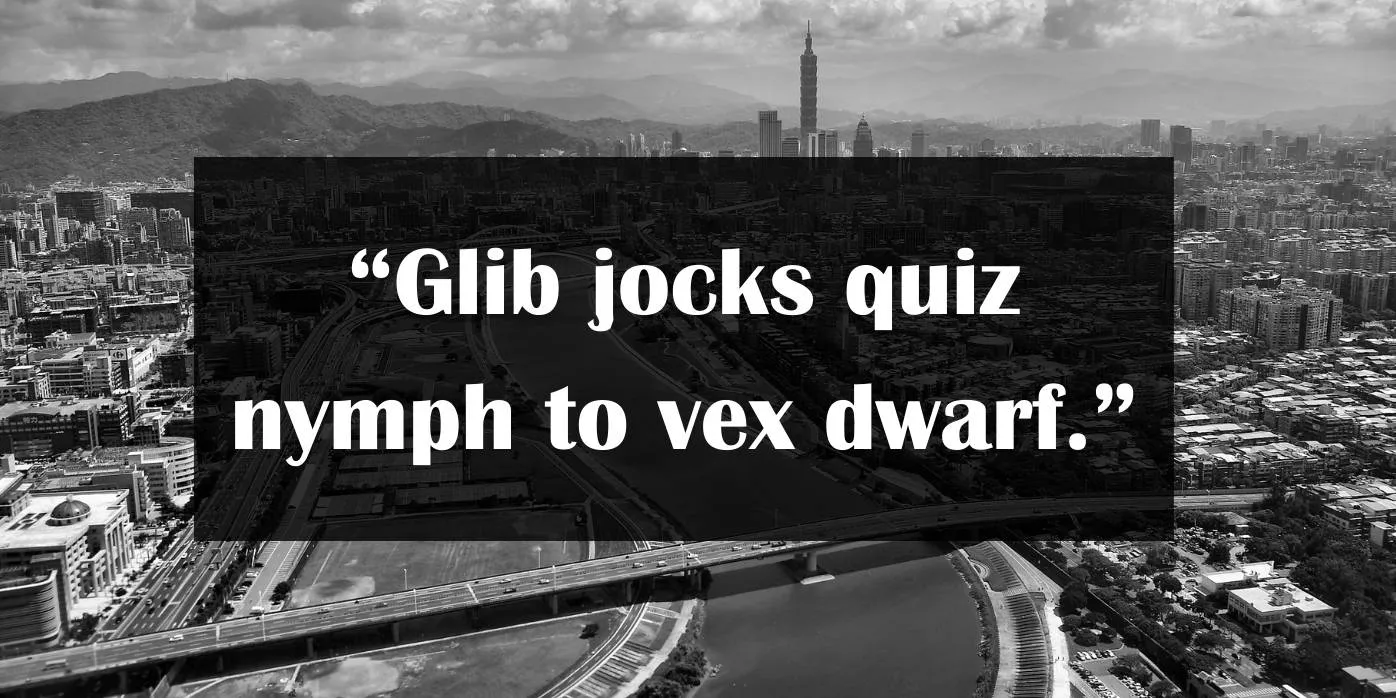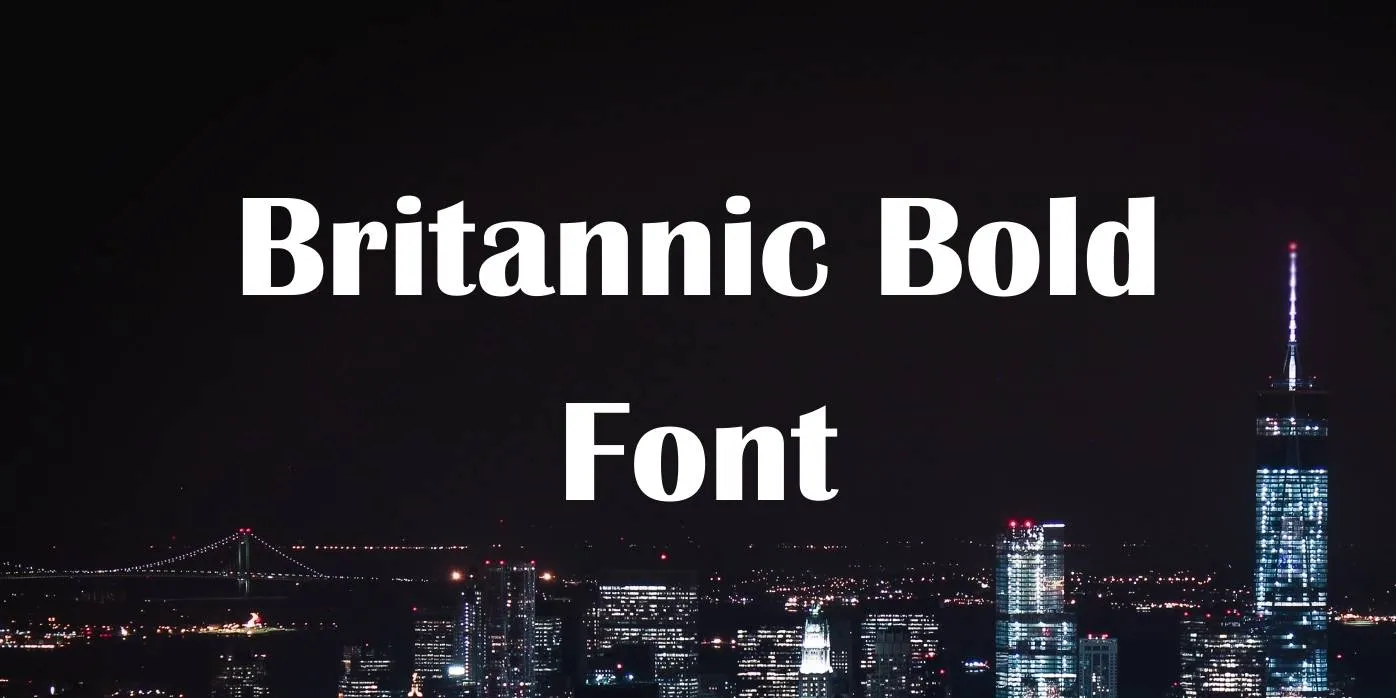
Britannic Bold Font
Here, we present an attractive typeface that has huge fame in the designs industry named Britannic Bold Font. This sans serif typeface was developed by Artimasa Studio. This amazing font is known for its strong and bold appearance, making it perfect for large blocks of text. It features clean and modern letterforms that are easy to read and perfectly suited for both print and digital applications.
This typeface is perfect for different software like Adobe, and Canva. It comes in five special styles. Whether you are designing a logo, poster, flyer, or website, Britannic Bold Font is the ideal typeface to give your designs an eye-catching aesthetic. It is well specified for the CSS.
Its bold appearance makes it ideal for use in large blocks of text, where clarity is essential.